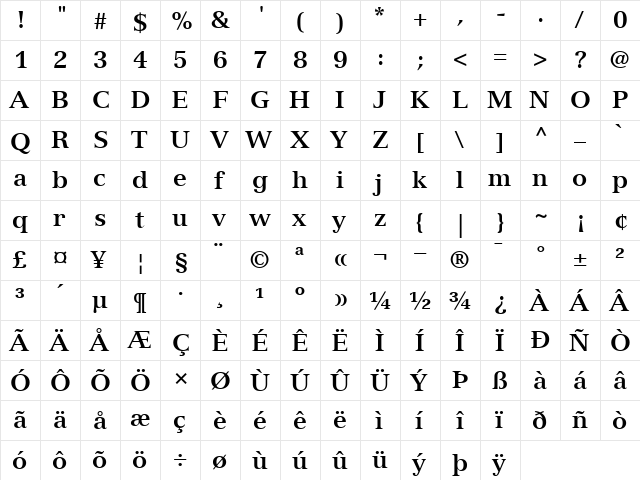
Versailles75 Bold
Design Context for Versailles75 Typeface
Versailles75 offers clean, dependable letterforms without strong stylistic allegiance, making it a practical choice for designers who need flexibility. The heavy weight commands attention and anchors typographic hierarchies.